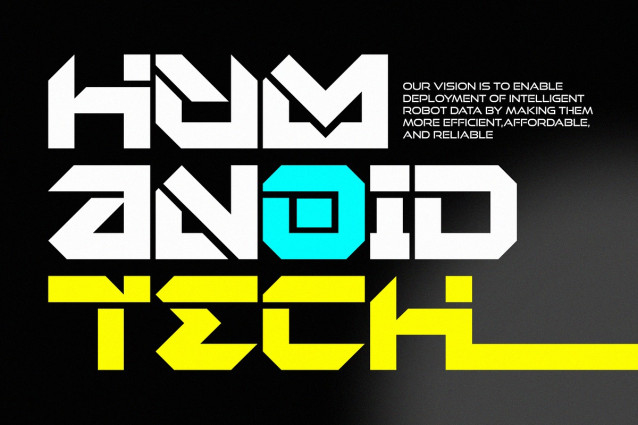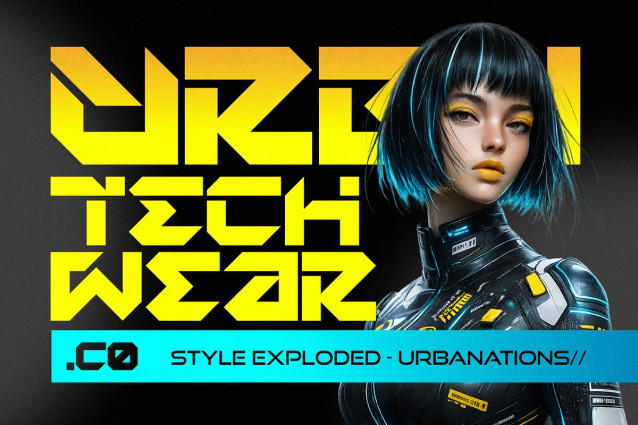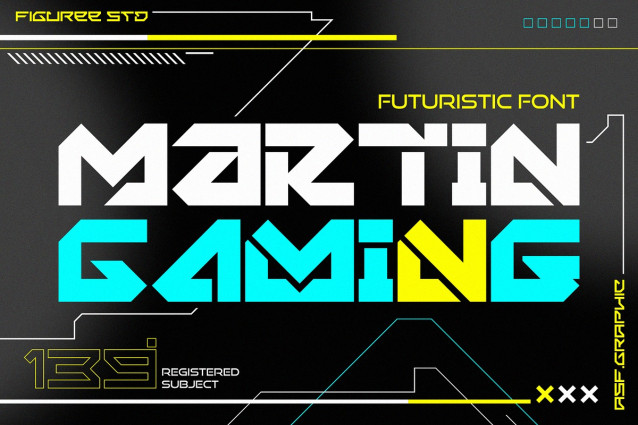
Martin Gaming Font
Martin Gaming Font is designed to deliver a sharp, digital-forward look for modern creative projects. Built with a techno-inspired structure, this typeface is ideal for gaming interfaces, sci-fi titles, technology visuals, and high-impact digital layouts.
With a combination of geometric forms and dynamic letter construction, Martin Gaming creates a strong visual identity that fits seamlessly into futuristic environments. Whether used in UI design, video thumbnails, motion graphics, or promotional visuals, this font helps communicate a clear and modern tone.
The inclusion of both uppercase and lowercase characters allows for flexible typography composition, making it suitable for both headlines and supporting text. Its consistent spacing and structure ensure readability across various screen sizes and formats.